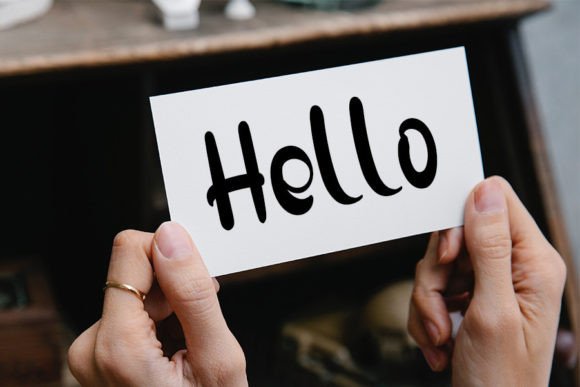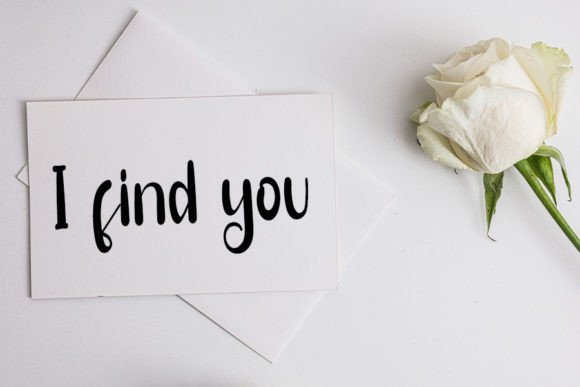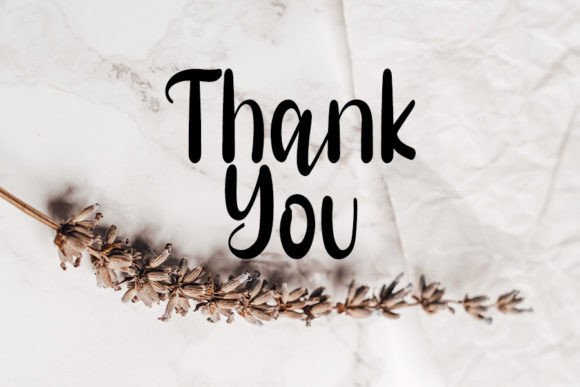
Dreaming Font: Elevate Your Designs with Timeless Elegance
In the world of typography, a well-crafted font can make all the difference in bringing your designs to life. For those seeking a touch of classic sophistication with a modern twist, the Dreaming Font is an exceptional choice. This stylish handwritten font boasts a contemporary atmosphere and impeccable form, drawing inspiration from timeless classic calligraphy.
The Essence of Dreaming Font
Dreaming Font is a beautifully balanced and varied typeface, meticulously designed to enhance the beauty of your projects. Its unique blend of traditional and modern elements makes it an ideal choice for designers and crafters looking to add a touch of elegance to their work. Whether you’re creating wedding invitations, branding materials, or digital content, Dreaming Font is sure to impress.
Key Features of Dreaming Font
- Contemporary yet Classic: Dreaming Font strikes the perfect balance between modern style and timeless classic calligraphy, making it versatile for various design applications.
- Handwritten with Flair: The font’s handwritten nature adds a personal touch to your designs, infusing them with warmth and character.
- Balanced and Varied: With careful attention to detail, Dreaming Font offers a range of styles and weights, ensuring that your designs are always visually appealing and engaging.
- Impeccable Form: The font’s impeccable form ensures that it remains legible and elegant, even at smaller sizes, making it perfect for body text and headlines alike.
Design Applications for Dreaming Font
Dreaming Font’s versatility makes it suitable for a wide range of design applications, including:
- Wedding and Event Design: Create stunning wedding invitations, save-the-date cards, and event branding with Dreaming Font’s elegant and sophisticated style.
- Branding and Packaging: Elevate your brand’s visual identity with Dreaming Font’s unique and memorable style, perfect for logos, business cards, and product packaging.
- Digital Content: Add a touch of elegance to your digital content, such as blog posts, social media graphics, and email newsletters, with Dreaming Font’s clean and legible design.
- Stationery and Paper Goods: Create beautiful stationery, journals, and paper goods with Dreaming Font’s charming and whimsical style.
Tips for Using Dreaming Font
To get the most out of Dreaming Font, consider the following tips:
- Pair with Contrasting Fonts: Combine Dreaming Font with contrasting fonts to create visual interest and hierarchy in your designs.
- Experiment with Colors: Dreaming Font looks stunning in a range of colors, from soft pastels to rich jewel tones. Experiment with different color palettes to find the perfect fit for your design.
- Pay Attention to Spacing: To maintain the font’s elegance, ensure that you leave sufficient spacing between lines and words.
Dreaming Font is a beautiful and versatile typeface that can elevate your designs to new heights. With its unique blend of classic and modern elements, impeccable form, and elegant style, it’s an excellent choice for designers and crafters seeking to add a touch of sophistication to their work. Whether you’re creating wedding invitations, branding materials, or digital content, Dreaming Font is sure to impress.